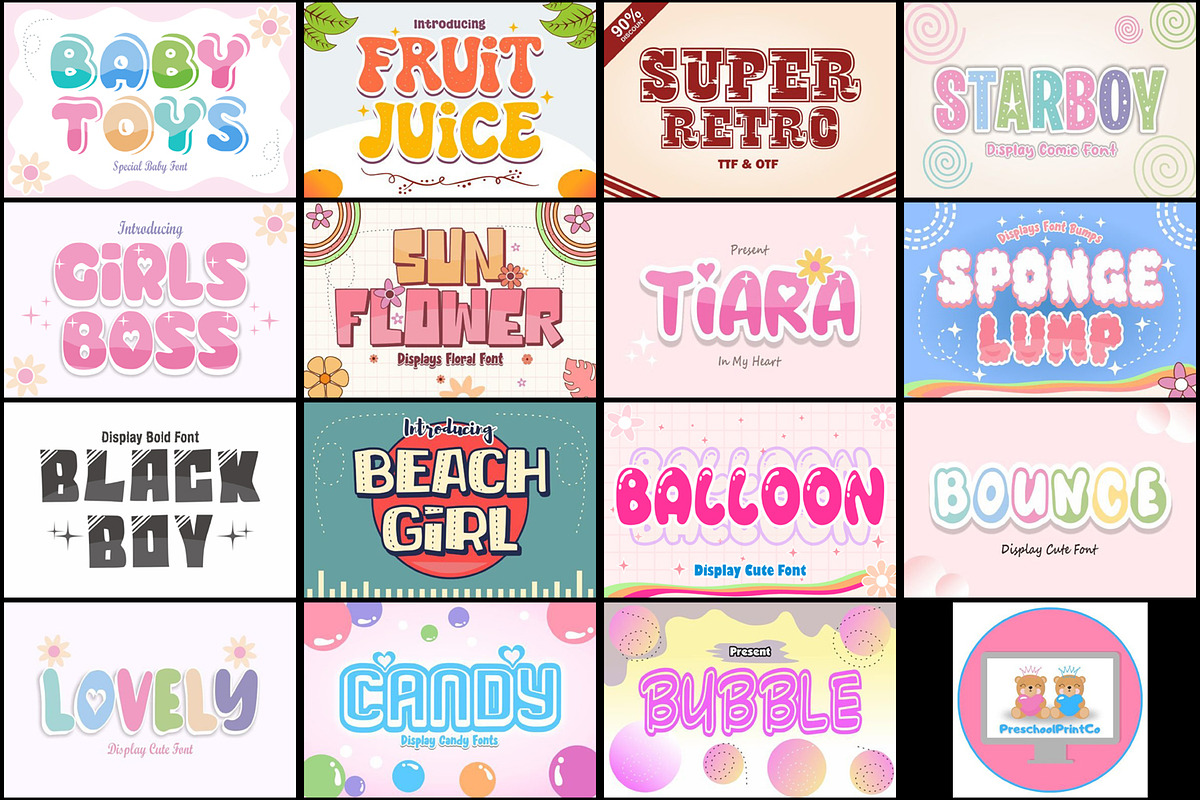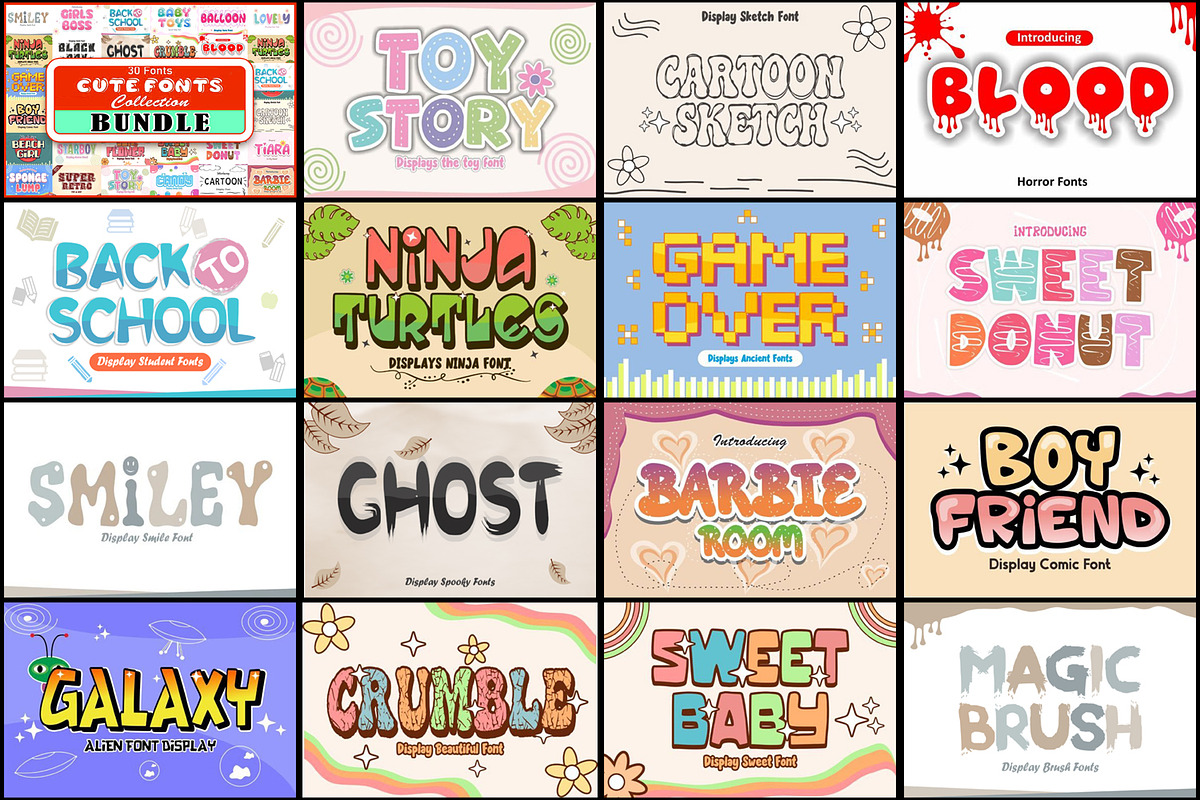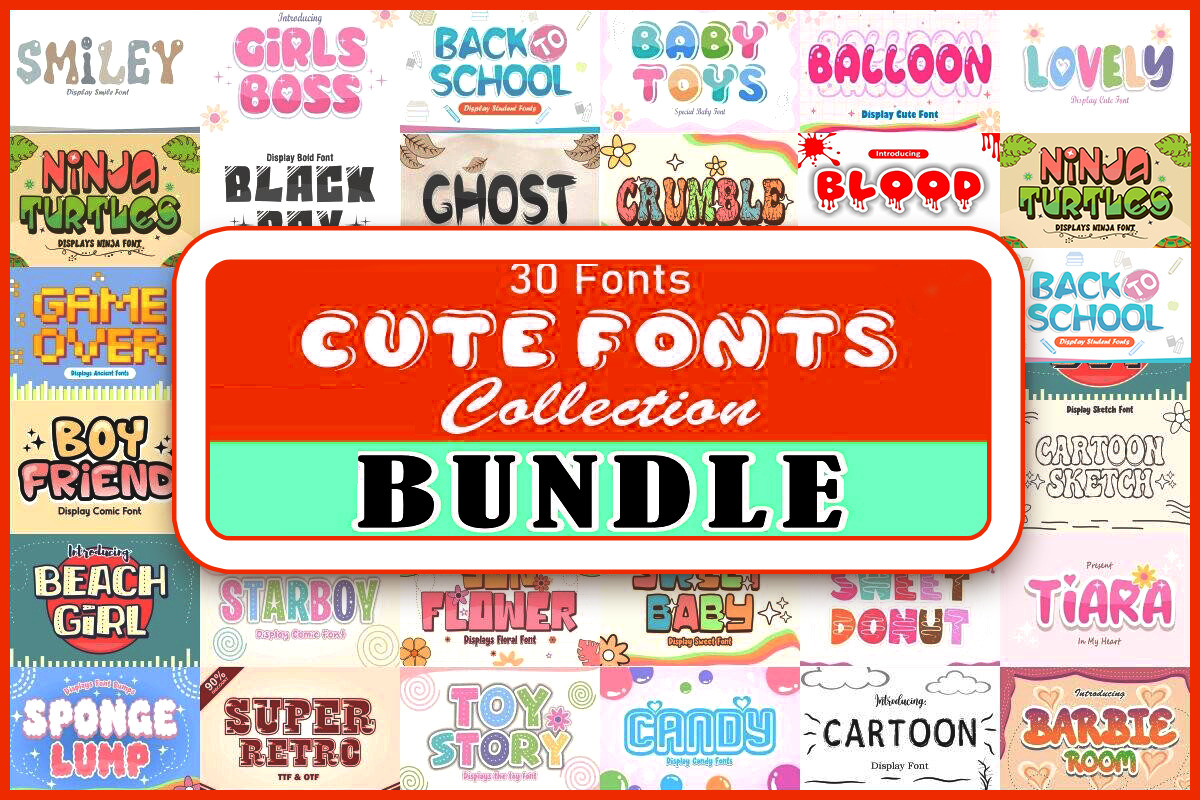
30 Cut Font Bundle, Modern, collect
Upgrade your design projects with the 30 Cut Font Bundle, a handpicked collection of 30 modern and versatile fonts perfect for a wide range of creative applications. This bundle is ideal for crafting stunning logos, branding materials, social media graphics, posters, invitations, T-shirt designs, and more.
Each font in this bundle features clean, sharp lines and contemporary styles, making them suitable for both professional and personal projects. Whether you're a graphic designer, entrepreneur, or hobbyist, these fonts will help you create eye-catching designs that stand out.
A mix of bold, minimalist, and decorative fonts for every need.